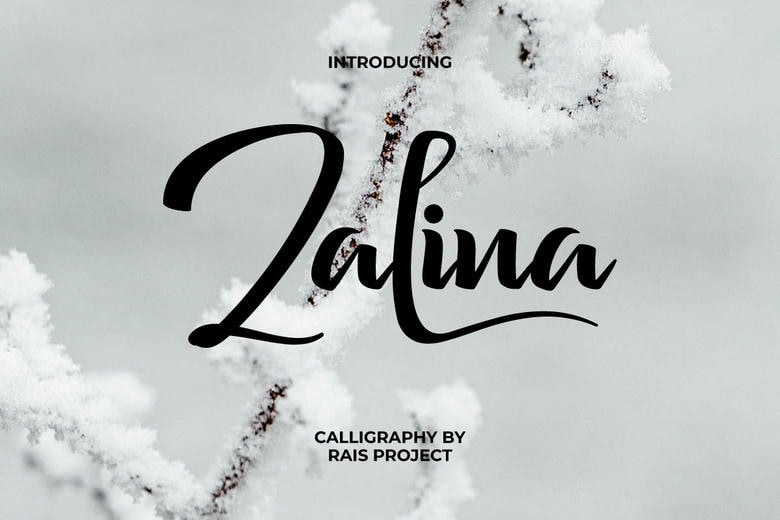
Zalina Font
Zalina is a beautiful calligraphy script font in classic simple style flowing along the baseline. This font perfect for many different projects, such as logos & branding, fashion, invitation, label, stationery, photography, product designs, signage, wedding designs, special events or anything.
Zalina Calligraphy Script Font